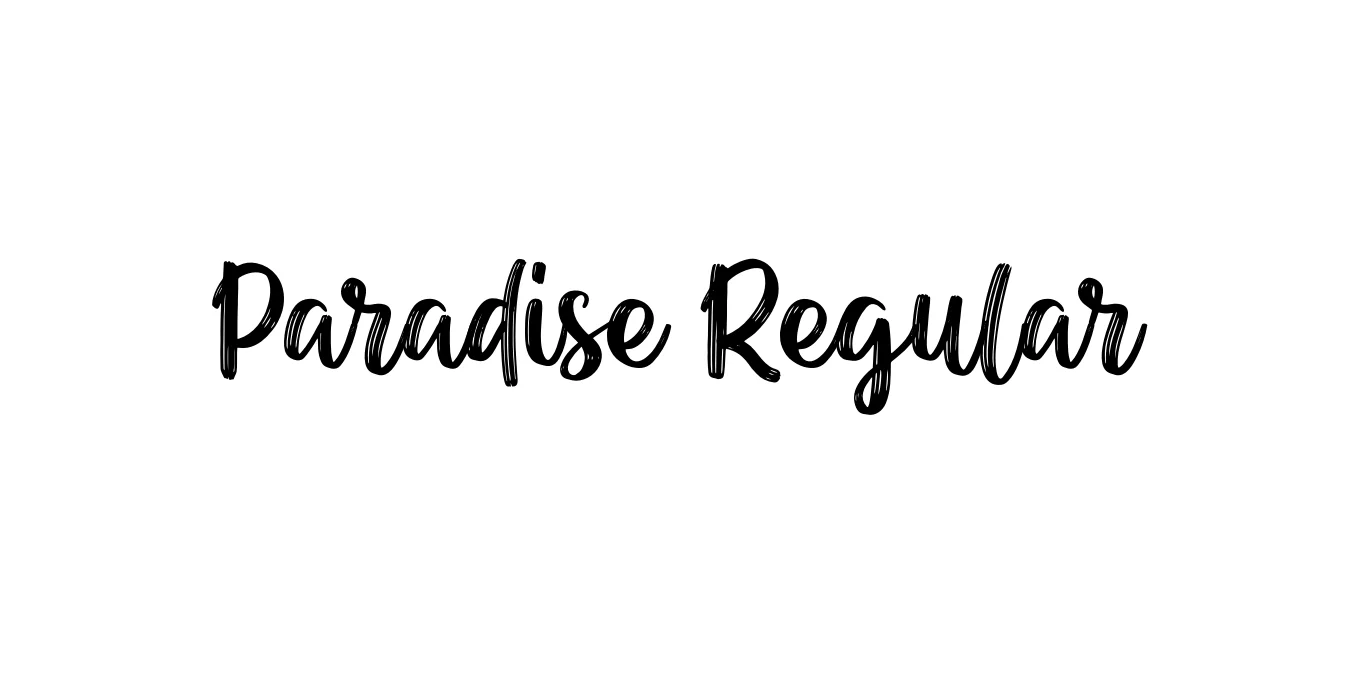
Paradise Regular
Designed by Syaf Rizal (Khurasan)
Paradise Regular is an elegant and flowing script typeface that captures the essence of modern calligraphy with a natural, handwritten touch. Its fluid strokes and sophisticated curves make it an ideal choice for designers looking to add a sense of luxury and personal charm to their creative projects. The font maintains high legibility while offering a bespoke, artisanal aesthetic that stands out in both print and digital environments.
Developed by the renowned foundry Khurasan, Paradise Regular has become a staple for high-end branding, fashion layouts, and social media graphics. It features a comprehensive set of characters that blend seamlessly, making it perfect for emotive headlines and delicate stationery. Whether used for a minimalist boutique logo or an elaborate event invitation, this typeface provides a professional finish that resonates with contemporary design trends.
Paradise Regular Best Uses
Creating unique and memorable logos for boutiques and luxury brands.
Perfect for wedding invitations, RSVP cards, and formal event programs.
Ideal for creating eye-catching quotes and stylish Instagram stories.
Adds a premium, handcrafted feel to cosmetics and lifestyle goods.